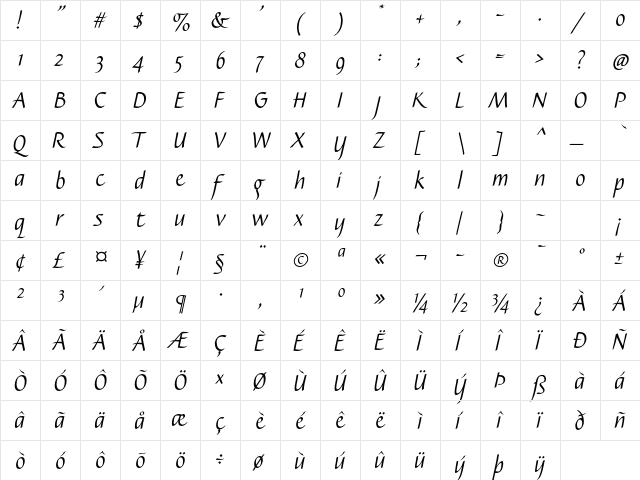
Caterina LT Std Light Italic
| Foundry | Linotype GmbH |
| Designer | Paul Veres |
Design Context for Caterina LT Std Typeface
Caterina LT Std offers clean, dependable letterforms without strong stylistic allegiance, making it a practical choice for designers who need flexibility. Its italic angle brings a sense of urgency and motion to the letterforms. The delicate stroke weight brings airiness and refinement to layouts.
Pro Tip: Use Caterina LT Std for emphasis, pull quotes, and subheadings where its slanted energy can add rhythm to the layout.